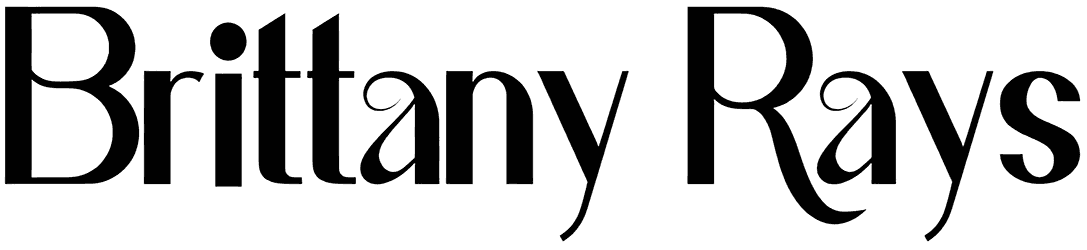
Brittany Rays Font
Give a chic and noble visual to your text with this sans serif font and show off your unique taste. The Brittany Rays font has minimal and humble letters that can be matched with any theme. There is no support for numbers and punctuation marks, but this basic font can meet your expectations and adorn your industrial holding branding professional.